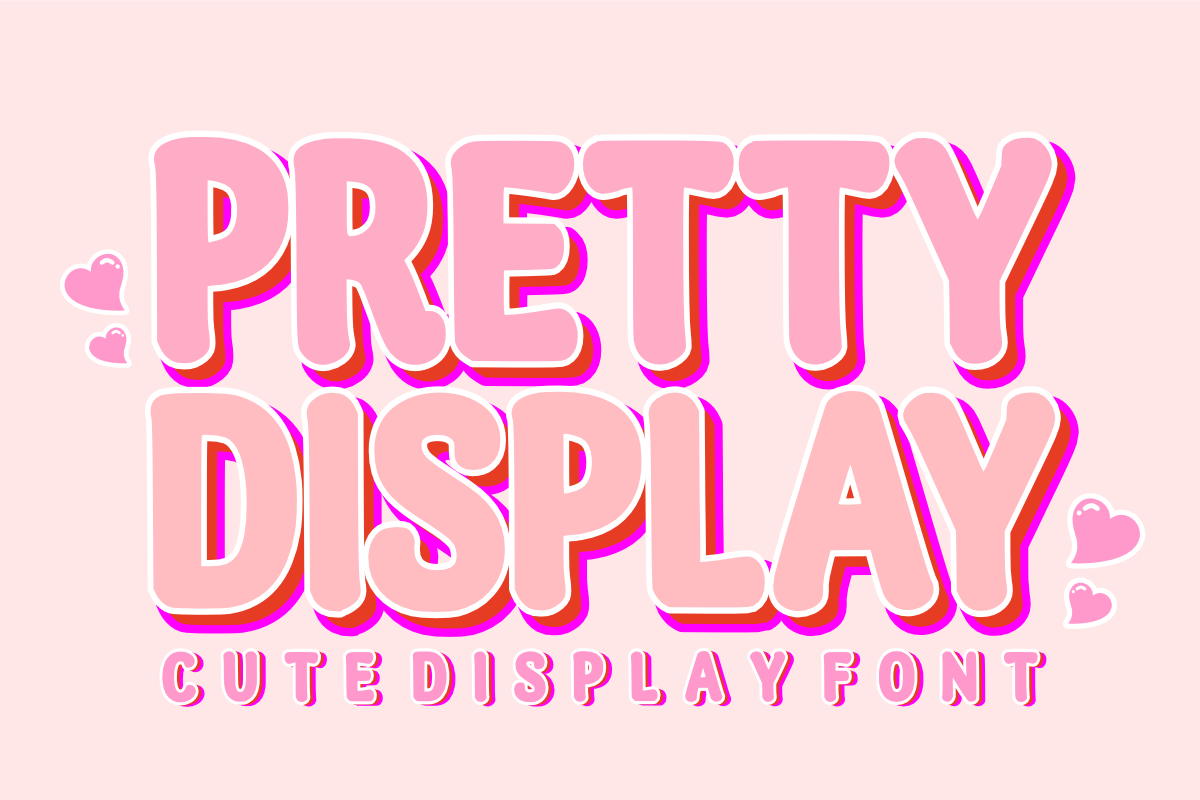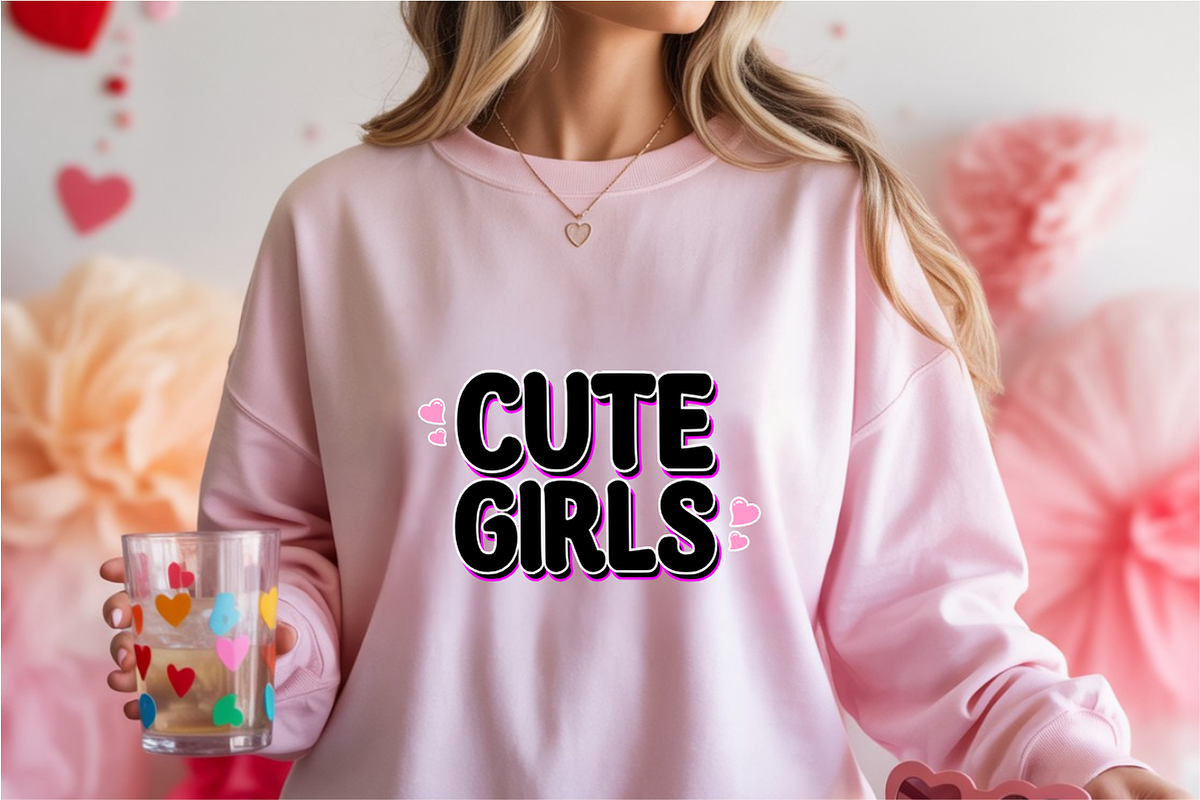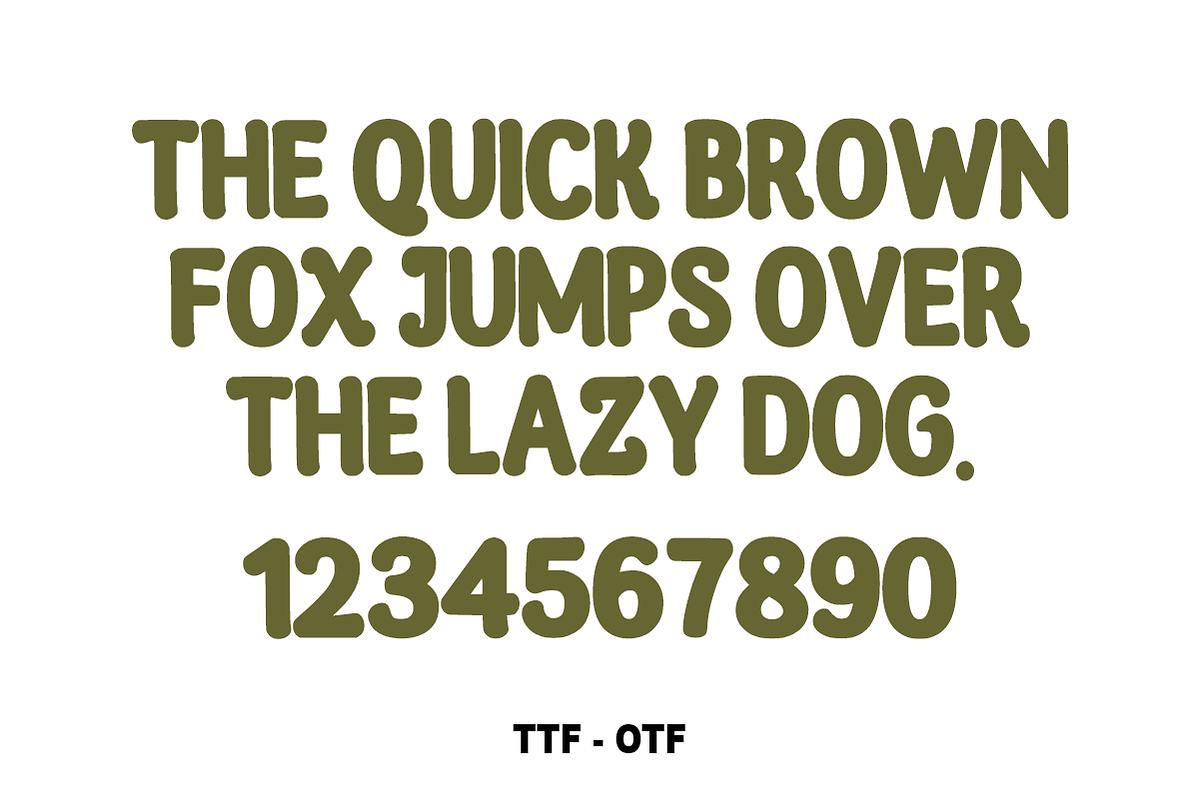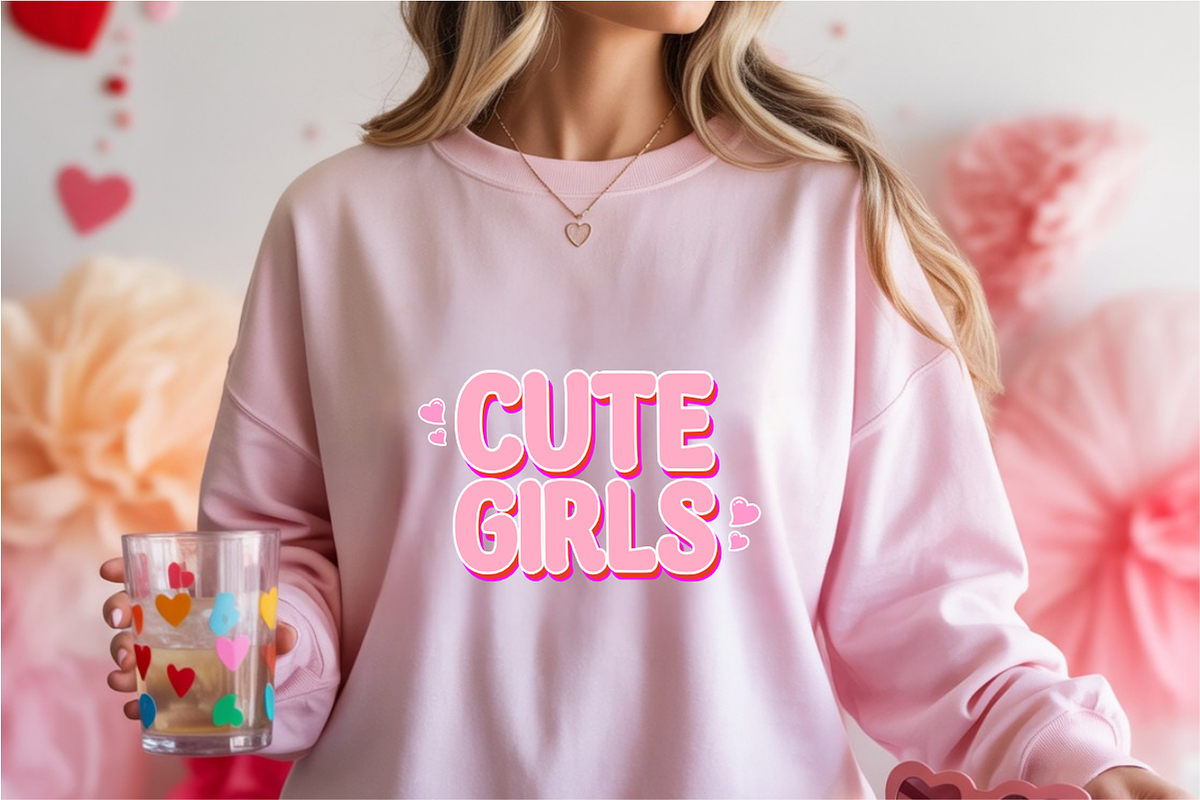
Pretty Display – Sweet & Cute Font
Pretty Display – Sweet & Bubbly Cute Font ✨💖
Infuse your designs with pure joy and sweetness!
Pretty Display is a bubbly, soft-edged display font designed for creators who want to add a playful and feminine touch to their work. Featuring thick letterforms and a charming, rounded aesthetic, this font captures a friendly and "cute" vibe that is perfect for any project needing a warm, approachable feel. Whether you’re designing for a child-friendly brand or creating eye-catching social media content, Pretty Display ensures your message looks as sweet as it sounds.
🌟 Why Pretty Display is a Must-Have:
Charming Bubbly Design: The rounded, extra-bold characters create an instant "cute" factor that appeals to both kids and adults.
Excellent Readability: Designed with clean curves to ensure your headers remain legible and clear even with its bold weight.
Versatile & Fun: Perfectly balances a hand-drawn feel with professional digital precision.
🎨 Perfect For:
🍭 Kids & Candy Branding: Logos for toy stores, candy shops, and children's apparel.
💖 Feminine & Soft Aesthetics: Branding for beauty products, stationery, and handmade crafts.
🎉 Celebration & Events: Birthday invitations, baby shower cards, and festive party flyers.
📸 Social Media & Content: Playful YouTube thumbnails, Instagram quotes, and Pinterest pins.
👕 Merchandise & Apparel: Cute t-shirt graphics, stickers, and tote bag designs.
Character Set: All-Caps Uppercase Letters (A-Z) with a playful finish.
Numbers & Symbols: Complete set of numerals (0-9) and essential simple punctuation.